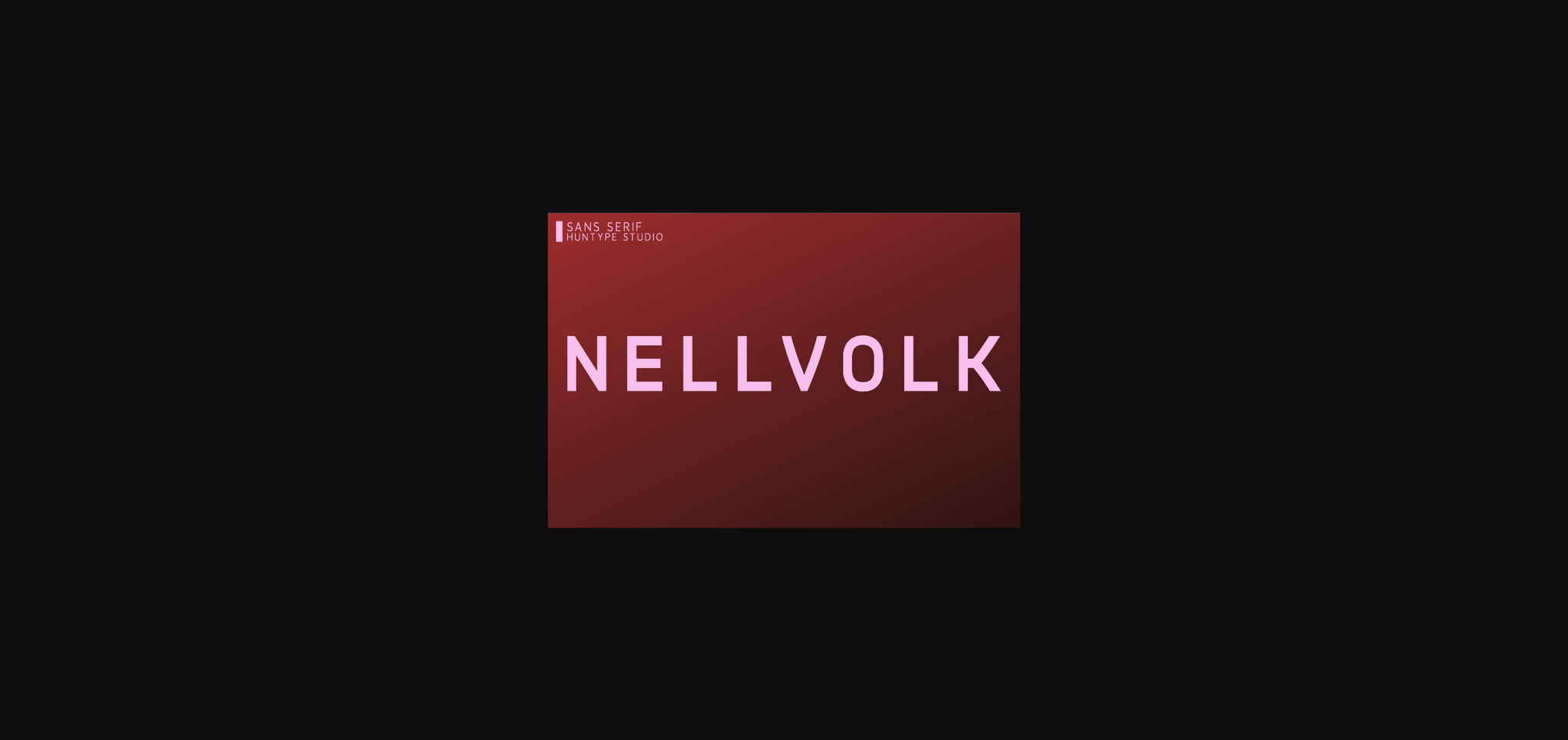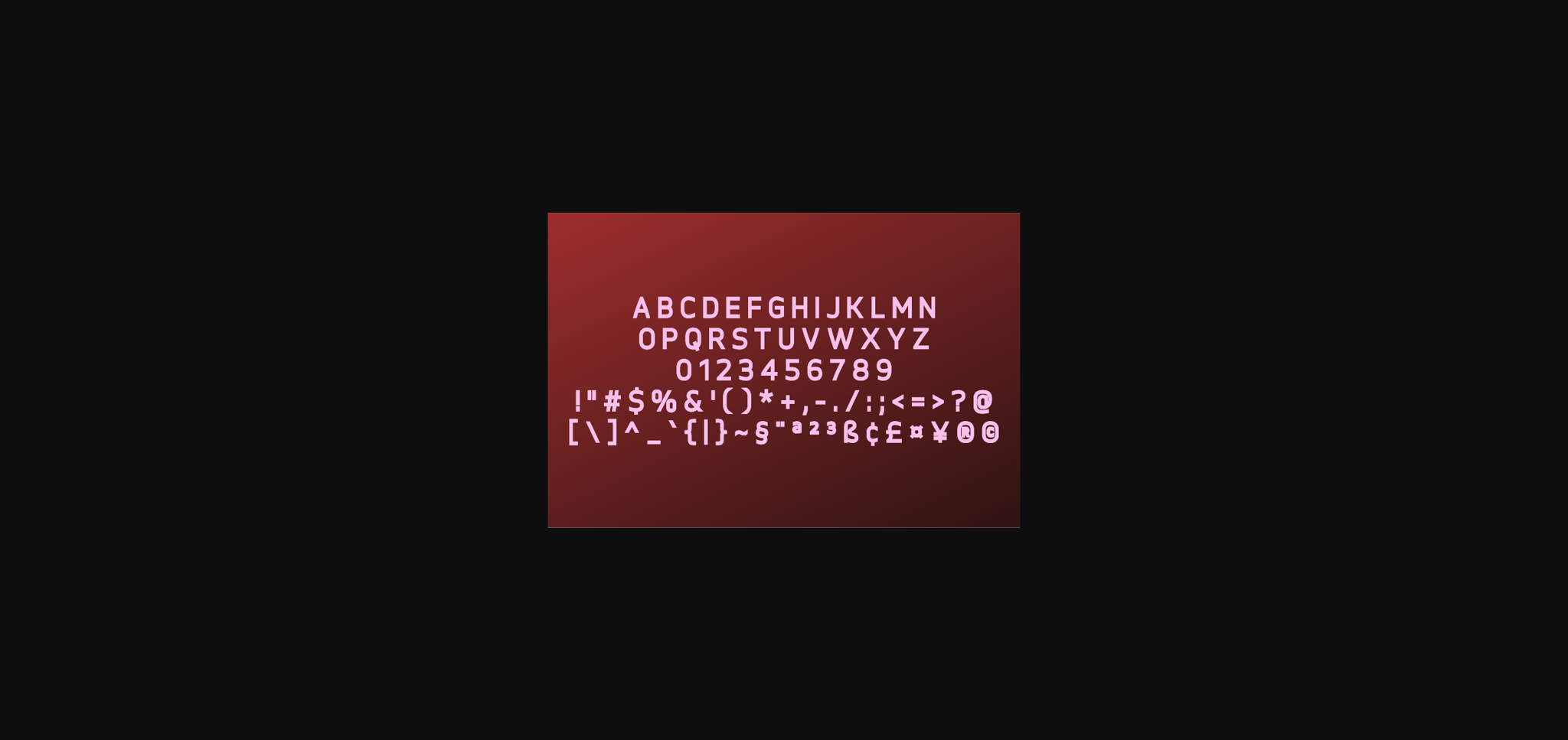
Nellvolk Font
About Nellvolk Font
Nellvolk is a smooth sans serif font. It will complement any design need perfectly with its perfectly balanced mix of the smooth and sharp!